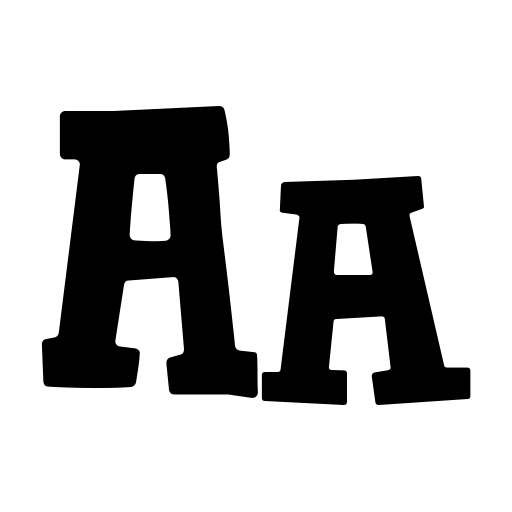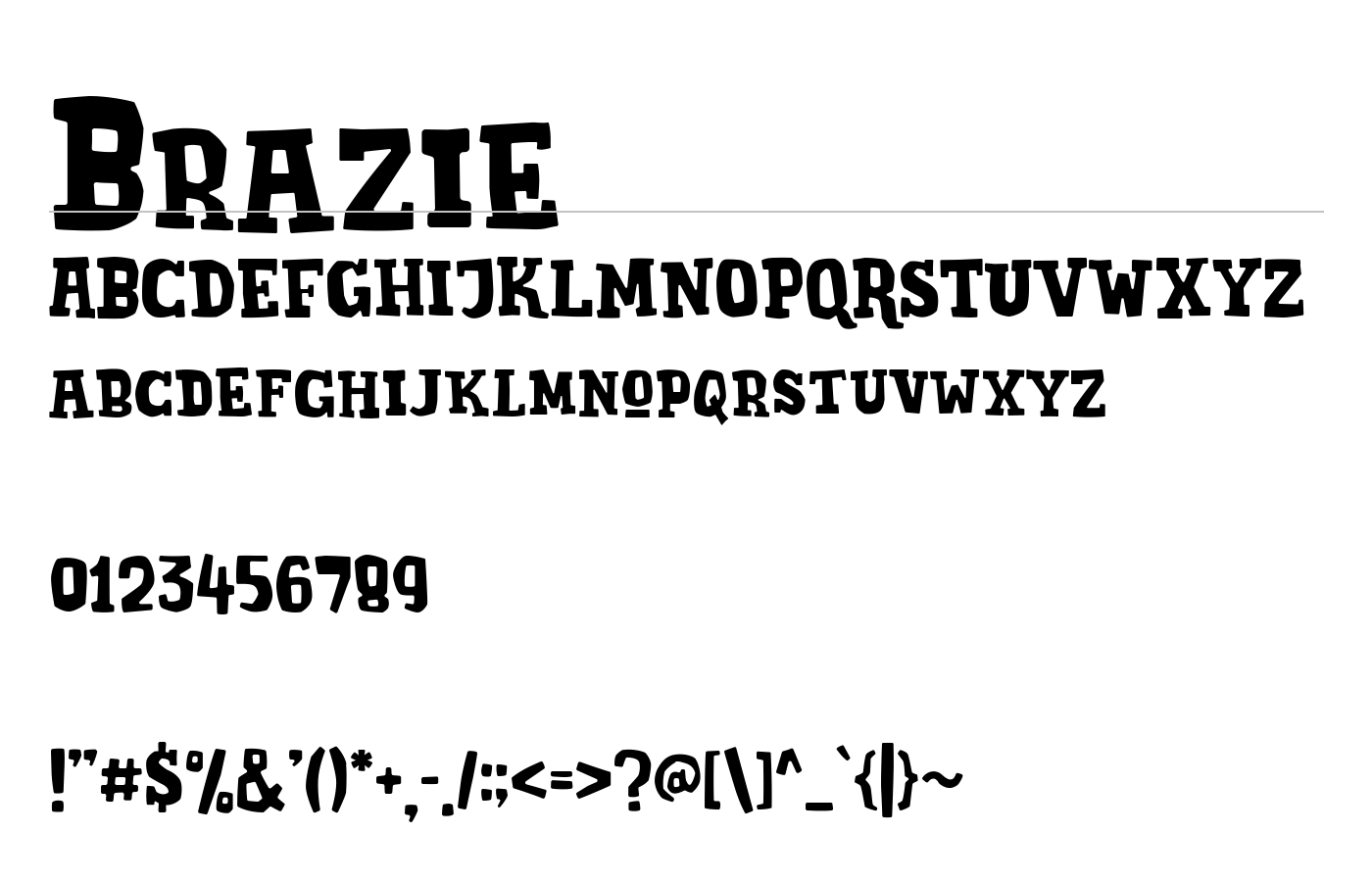
Brazie is a bold, condensed slab serif font with a playful and slightly rugged character. Its strong, blocky letterforms feature thick, bracketed serifs and uneven stroke widths that give it a hand-crafted, vintage feel, perfect for creating eye-catching headlines and logos with personality. This font works well in branding, posters, and packaging where a bold, informal yet sturdy look is desired.
Brazie Font
About Brazie Font